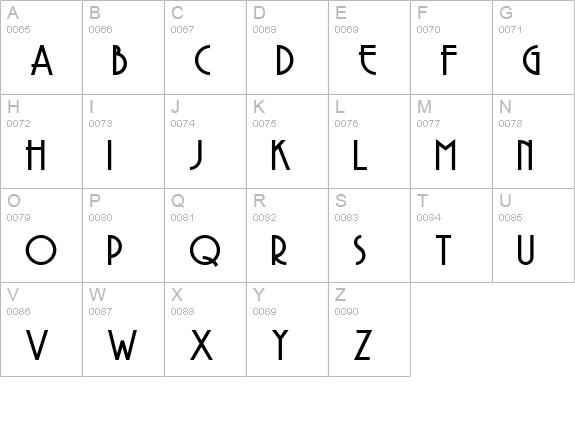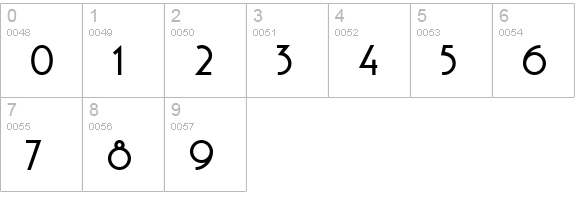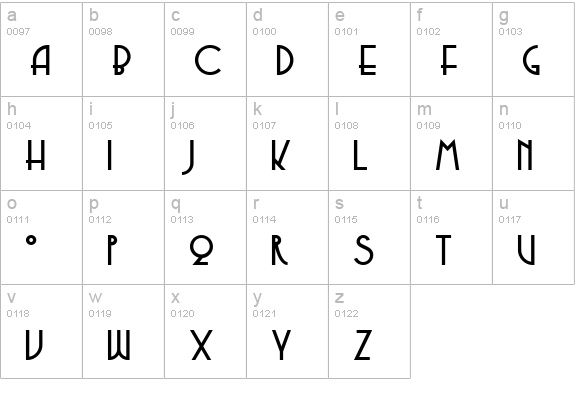
Copasetic NF is a charming and versatile font that exudes a sense of casual elegance. With its rounded edges and playful curves, this typeface strikes the perfect balance between modernity and retro charm. Whether used for headlines, logos, or body text, Copasetic NF adds a touch of whimsy and sophistication to any design project. What sets Copasetic NF apart is not only its unique aesthetic appeal but also its accessibility. This delightful font is available for free download at FontsMarket.com, making it a valuable addition to any designer's toolkit. With Copasetic NF, you can effortlessly elevate your designs and bring a touch of creativity to your work without breaking the bank. Don't miss out on this fantastic opportunity to enhance your projects with the free-spirited charm of Copasetic NF font.